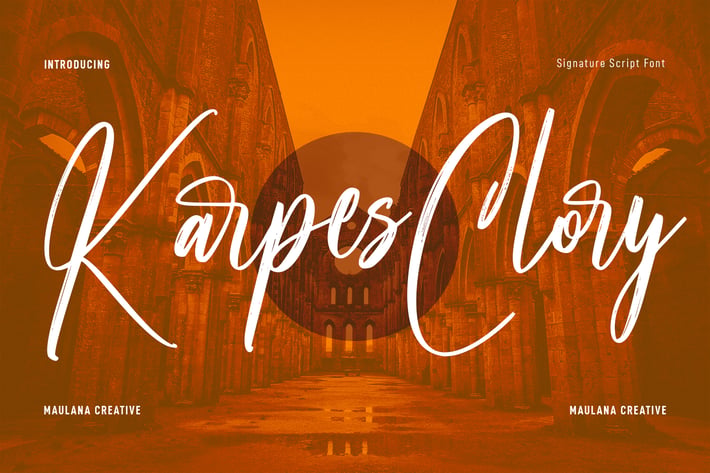
Karpes Clory Signature Script Font
Karpes Clory is a Casual Brush Script font. With bold slant rough stroke, fun character with a bit of ligatures. To give you an extra creative work. Karpes Clory font support multilingual more than 100+ language. This font is good for logo design, Social media, Movie Titles, Books Titles, a short text even a long text letter and good for your secondary text font with sans or serif. Make a stunning work with Karpes Clory font.